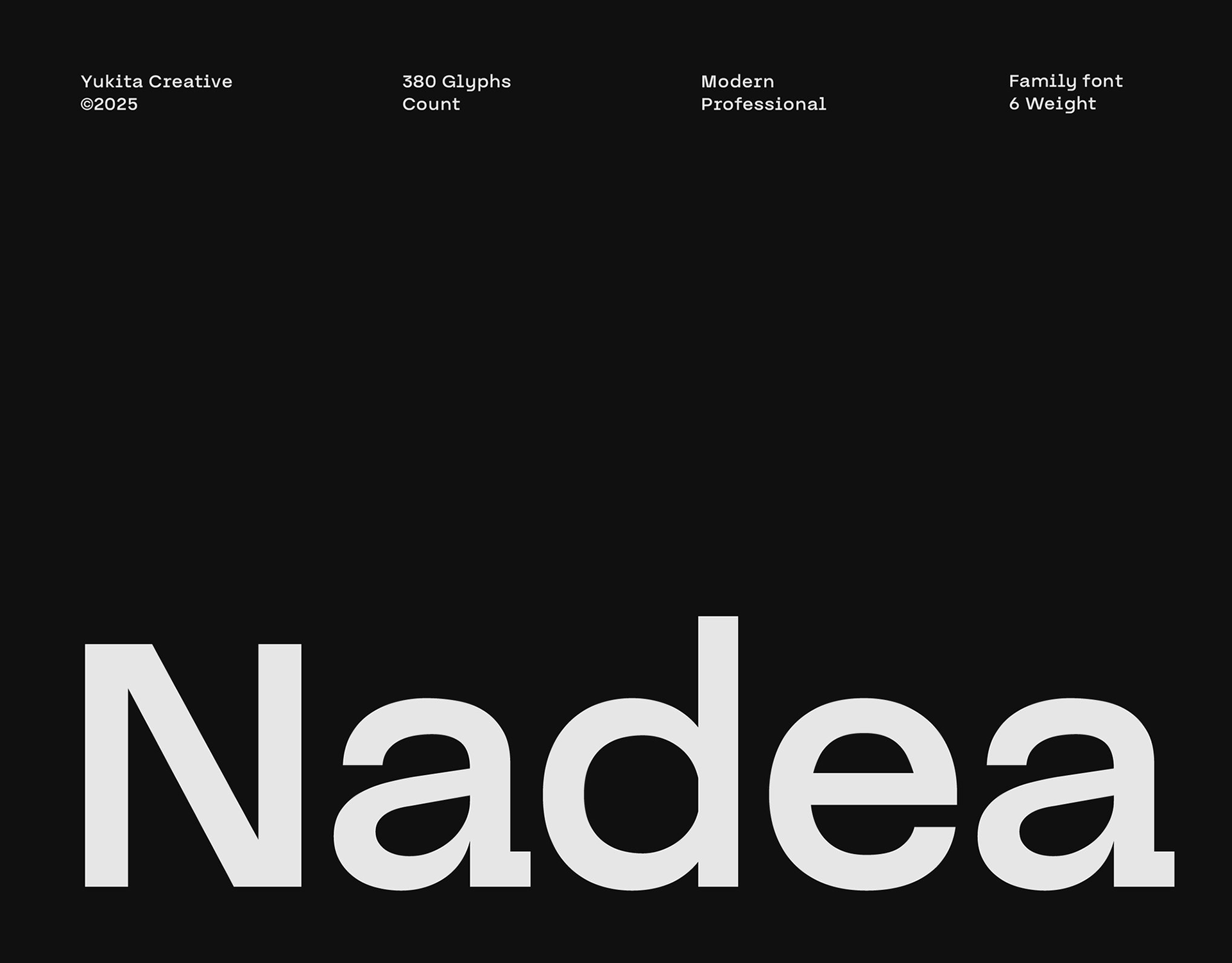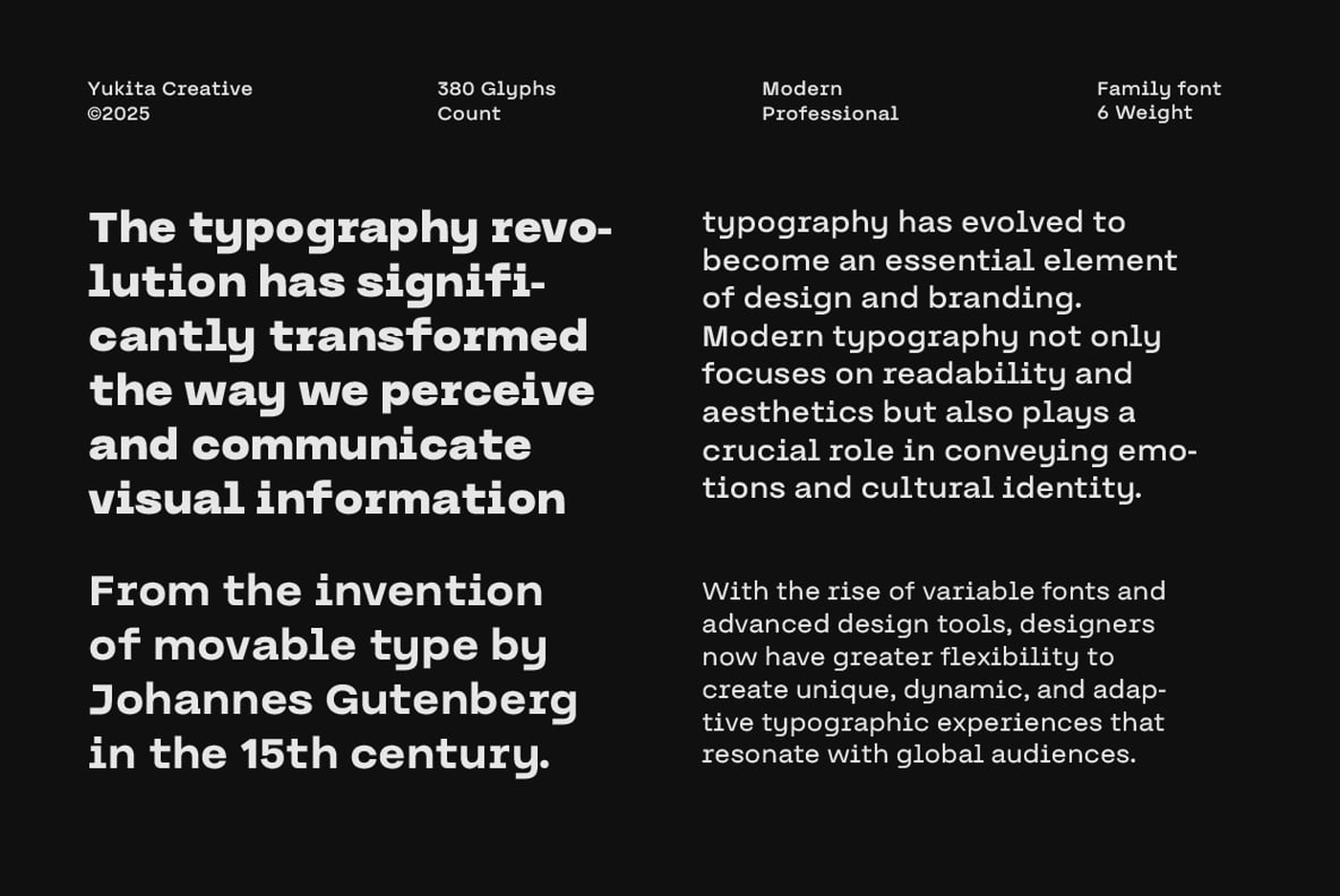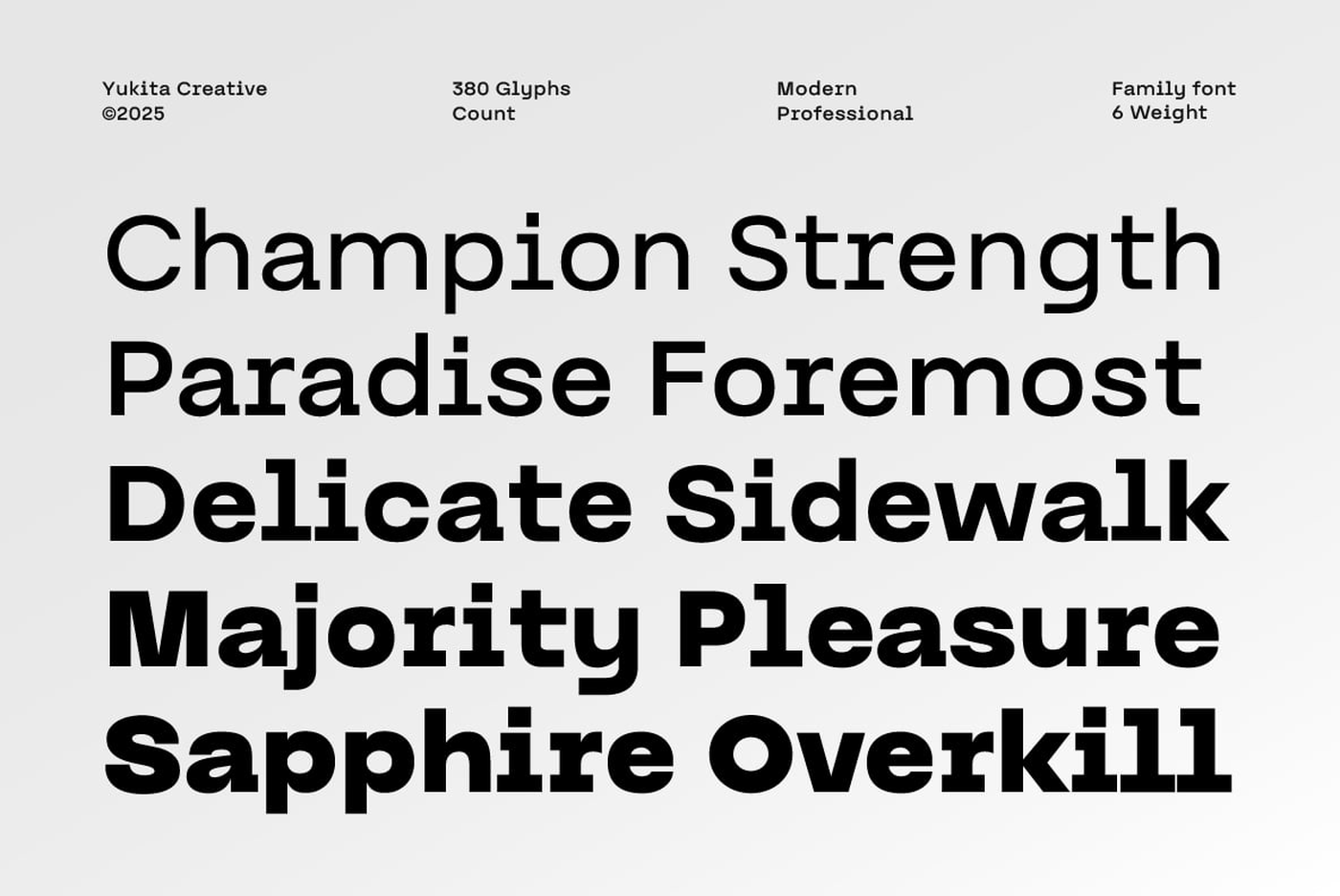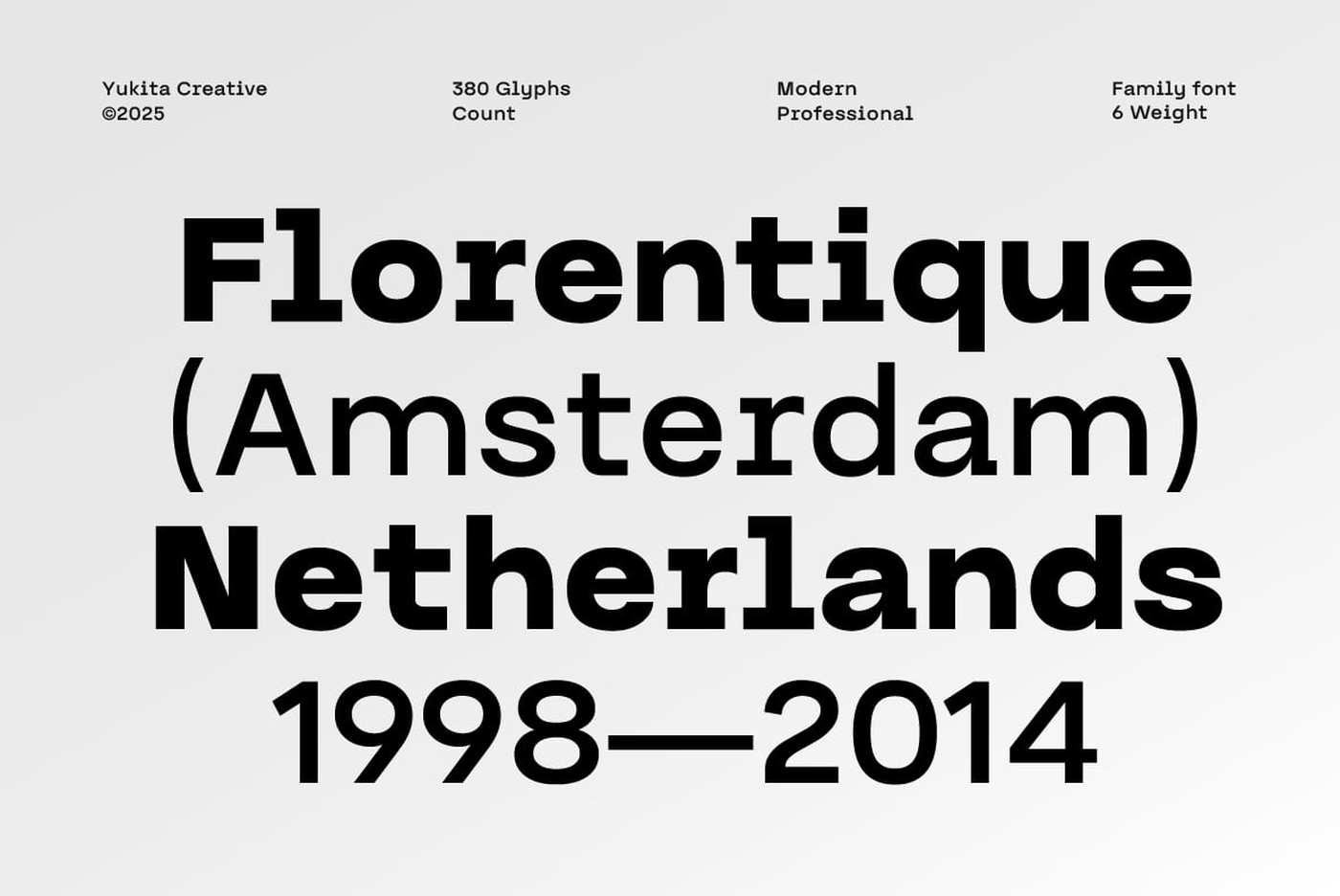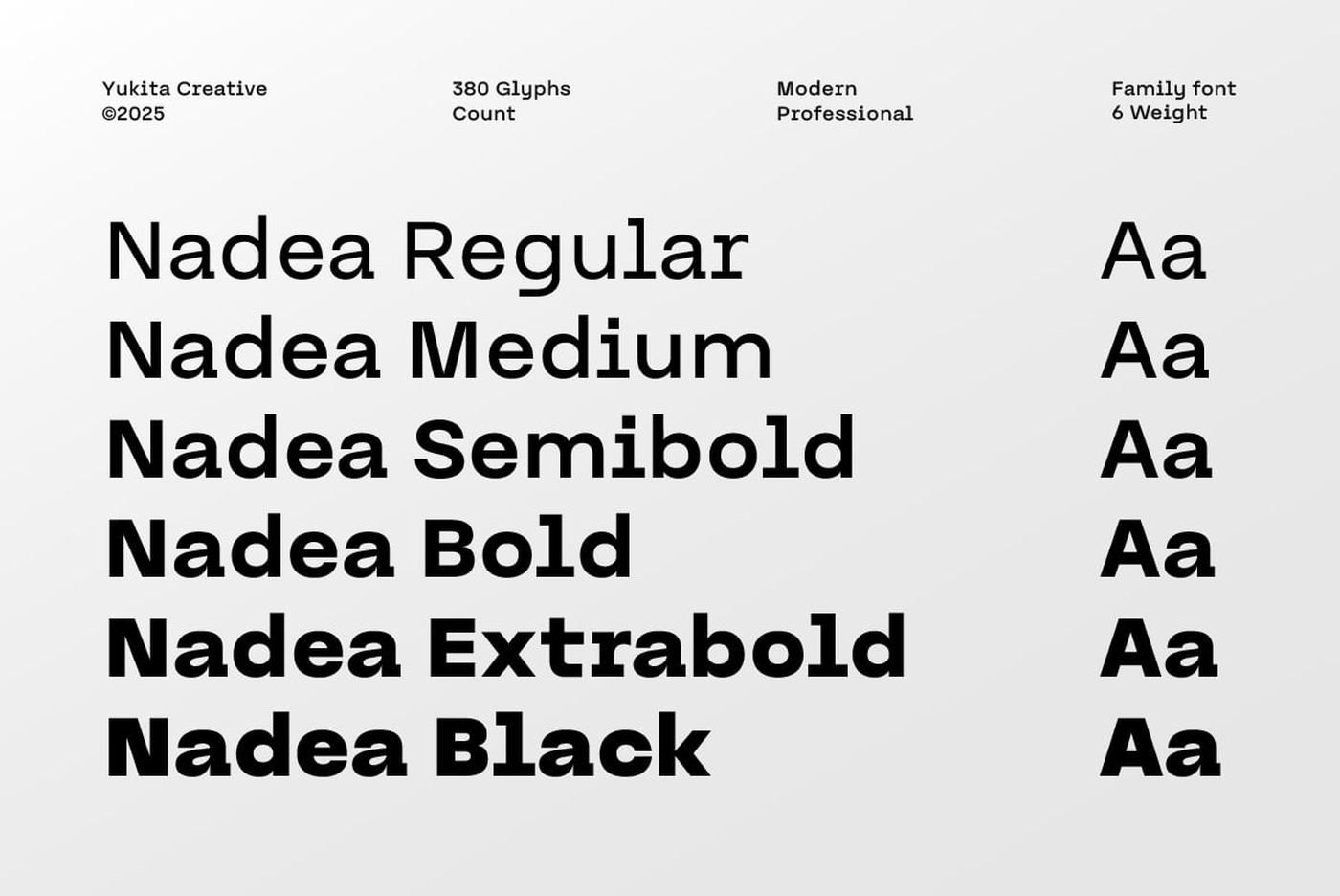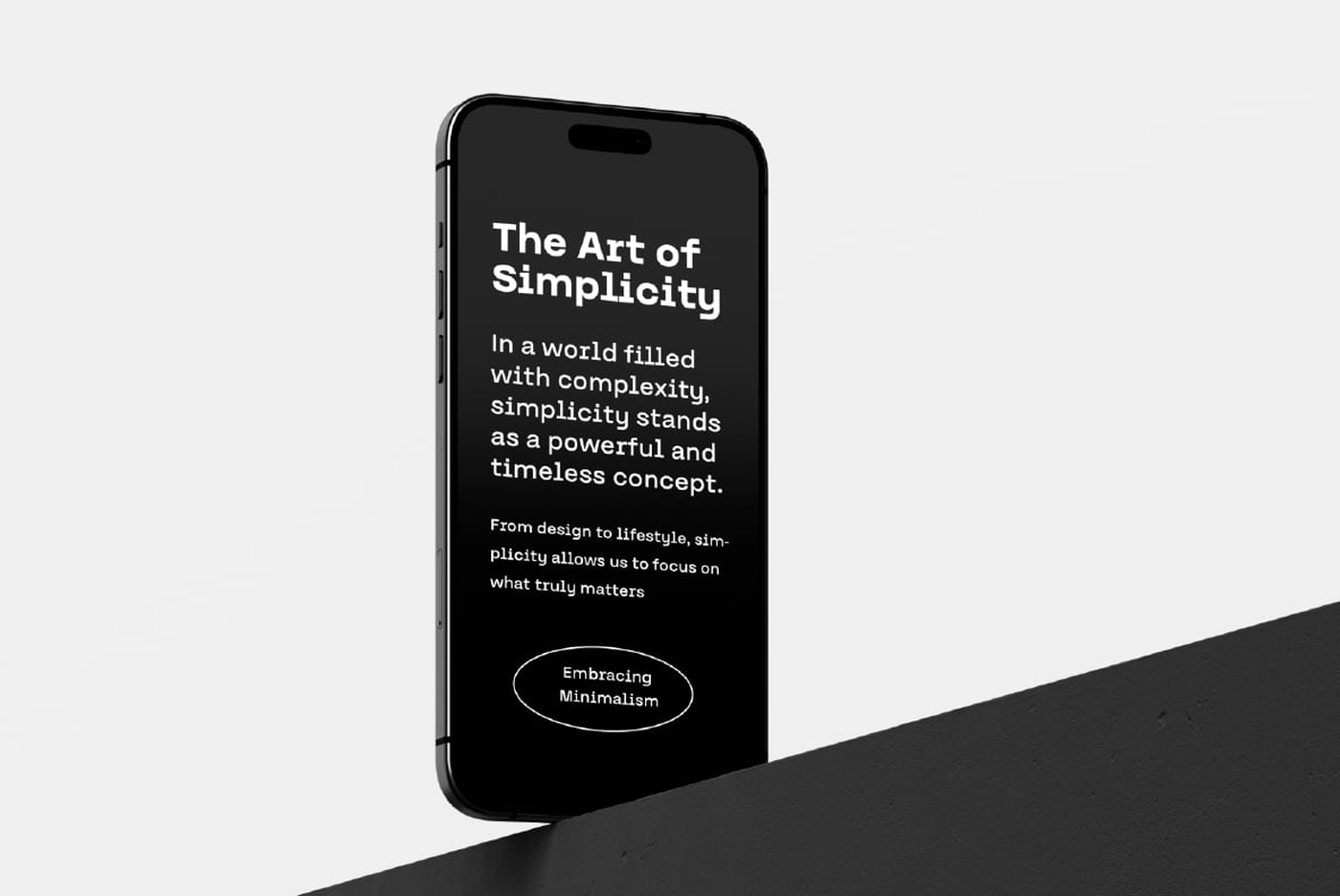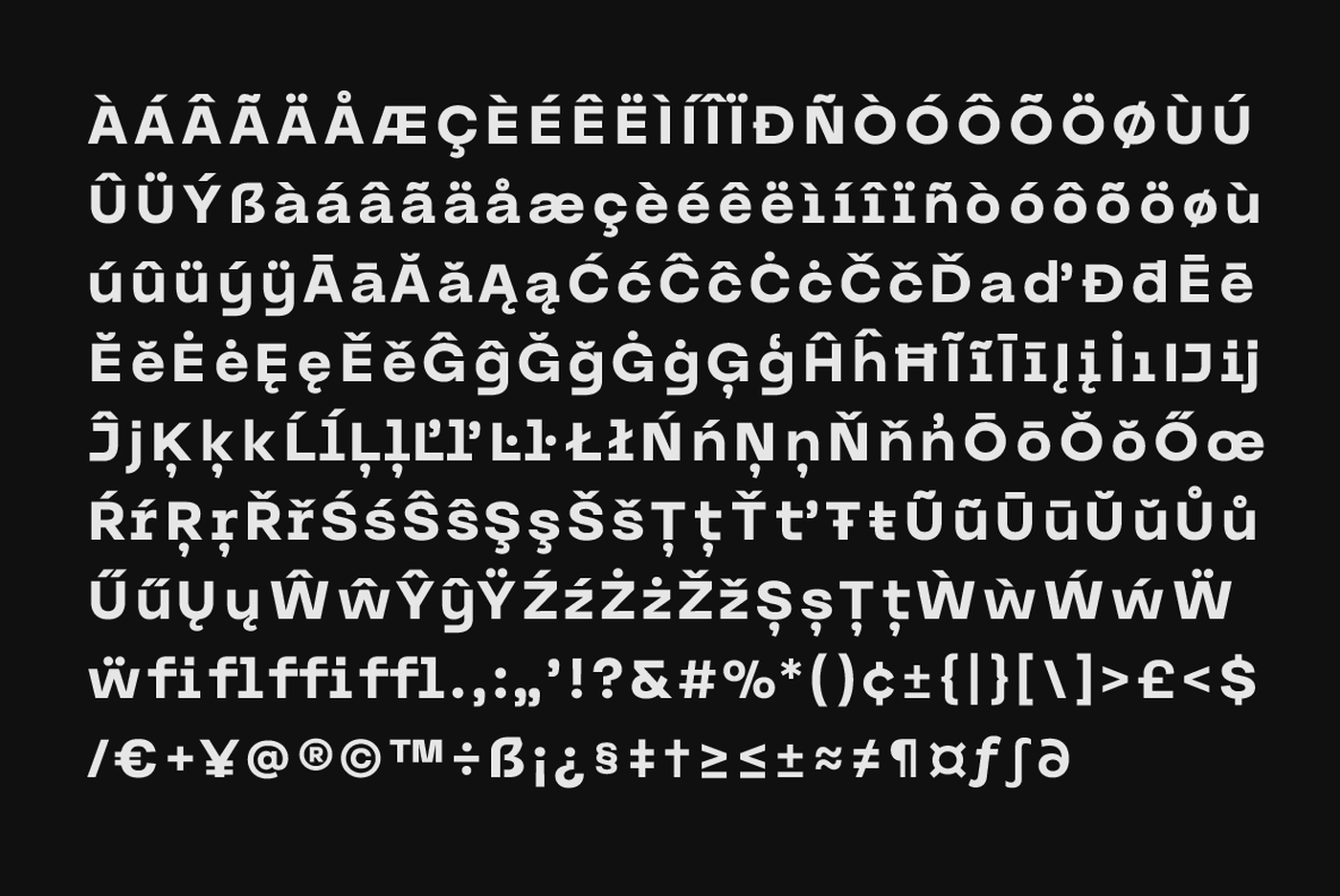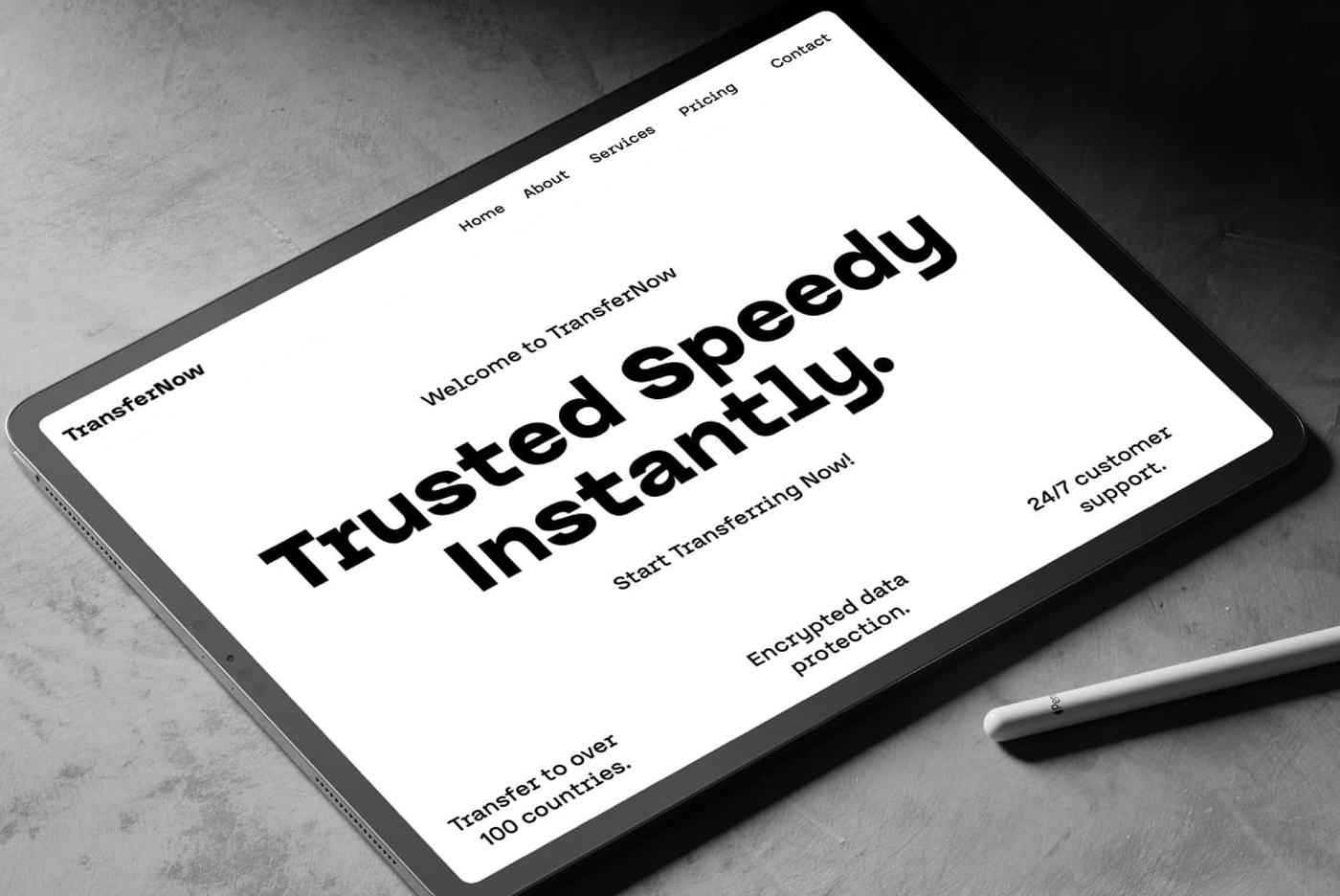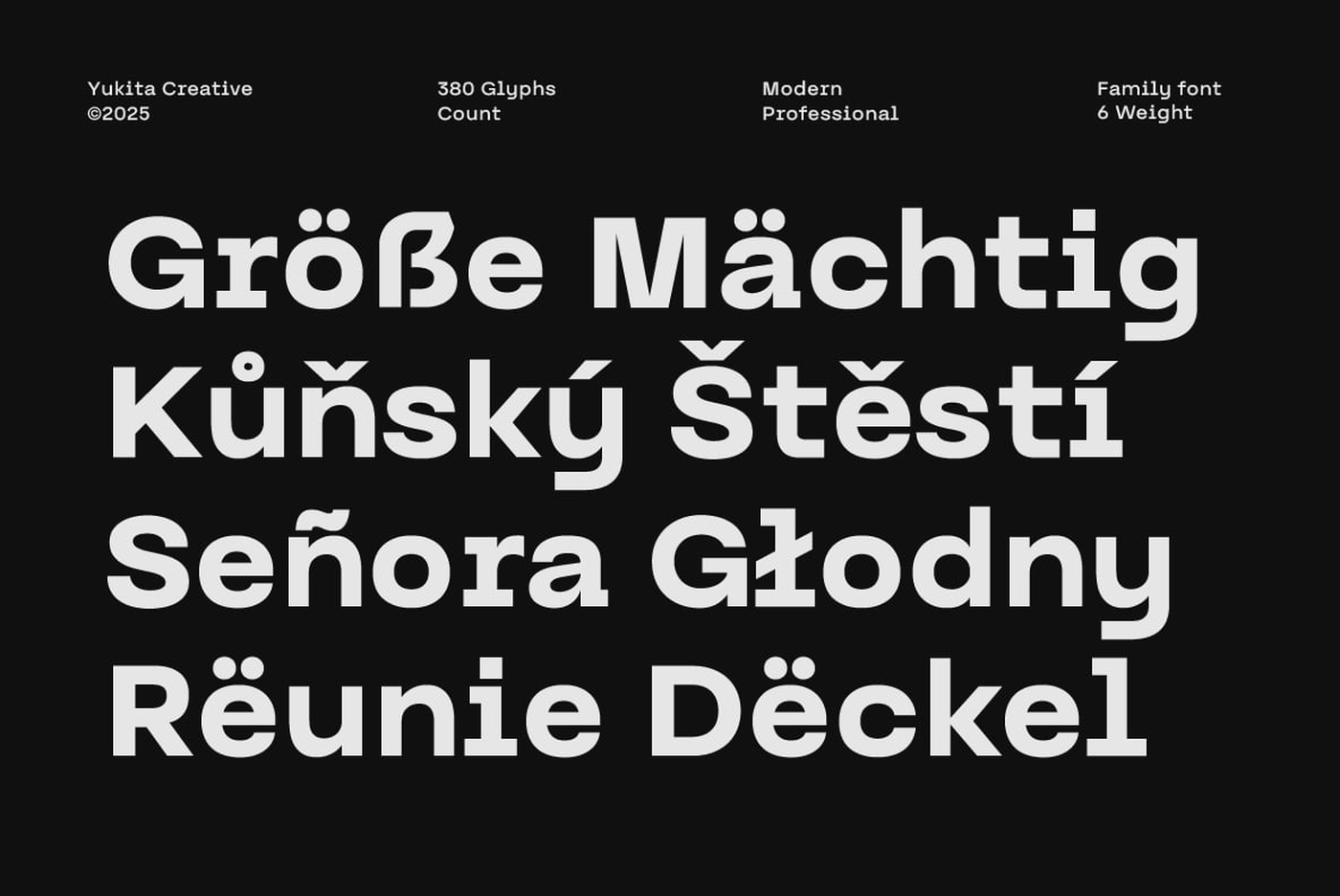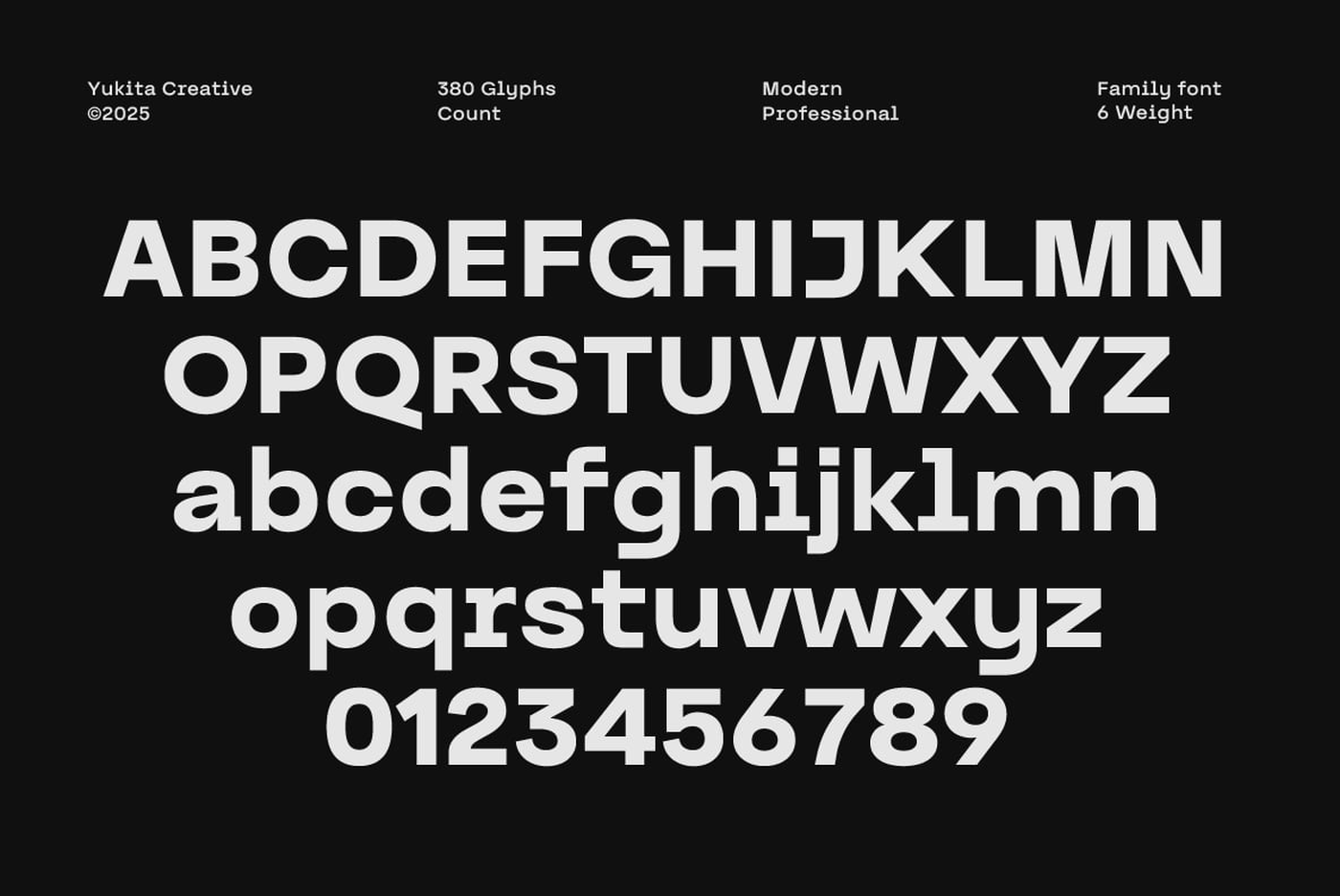
Nadea - Sans Serif Font Family
Nadea is a modern and minimalist typeface crafted to bring elegance and simplicity to your creative projects. With clean lines, balanced proportions, and versatile weights, Nadea is perfect for branding, logos, editorial design, posters, and web design. Carefully designed with attention to detail, Nadea delivers a contemporary look that enhances both bold headlines and subtle body text. Whether you're working on modern branding projects, typography layouts, or UI/UX design, Nadea Sans Serif provides flexibility, precision, and professional quality in every character.